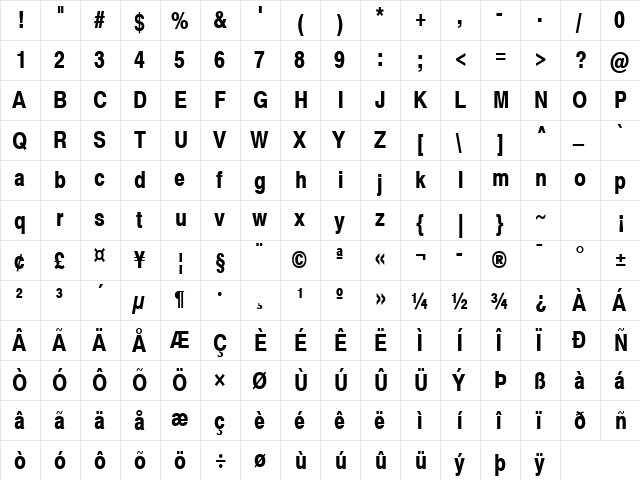
Swiss 721 Narrow SWA Bold Font Preview
Design Context for Swiss 721 Narrow SWA Typeface
Swiss 721 Narrow SWA takes a measured approach to typography — its balanced proportions and neutral character make it a reliable workhorse for both digital and print work. The heavy weight commands attention and anchors typographic hierarchies. Its narrow stance lets it pack a punch even in space-constrained designs.